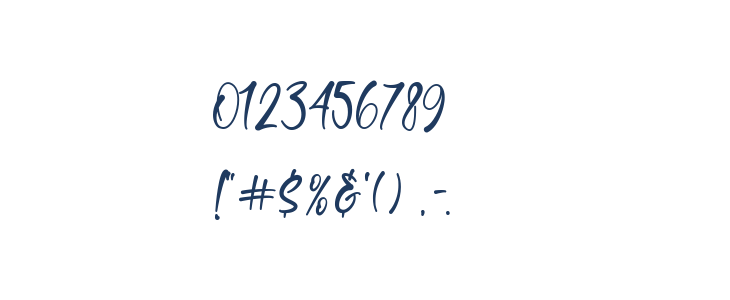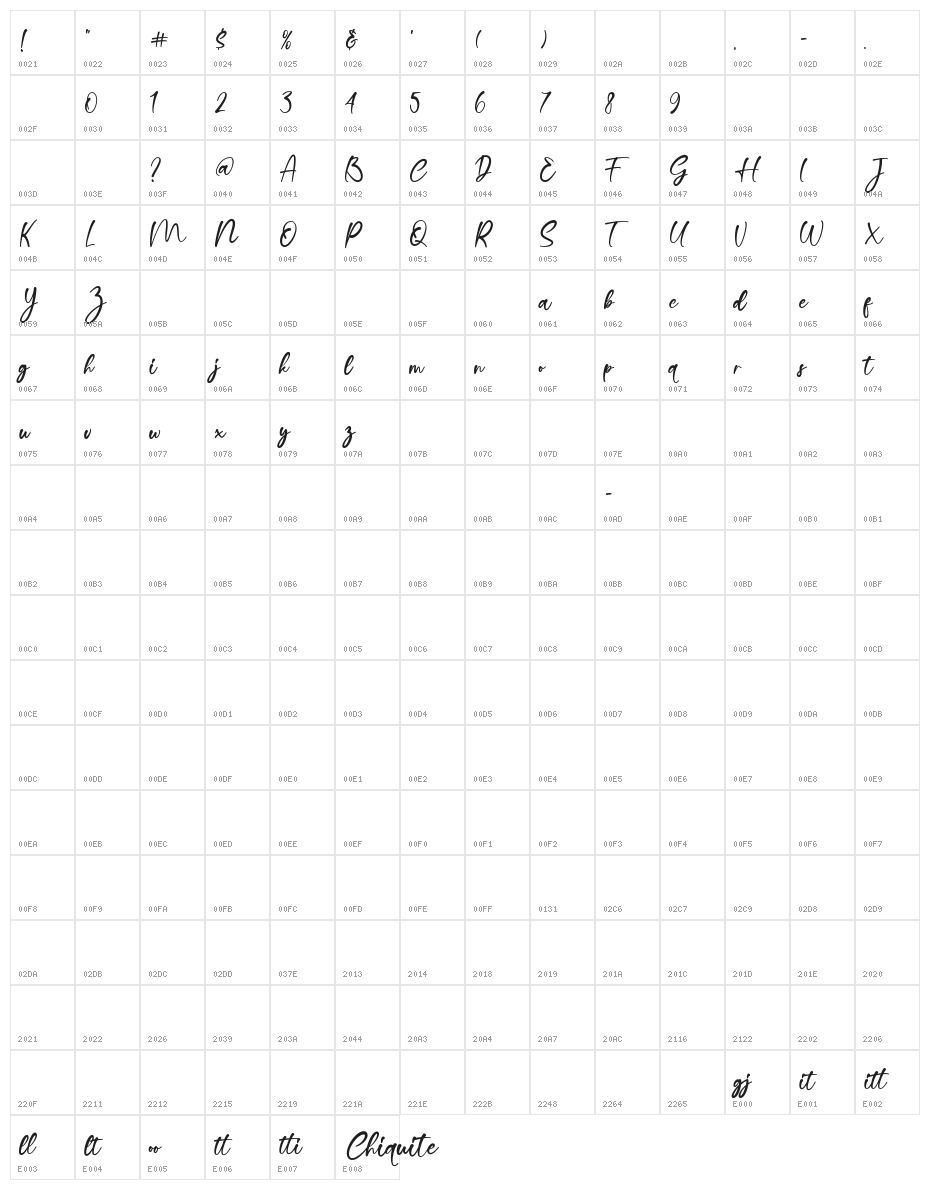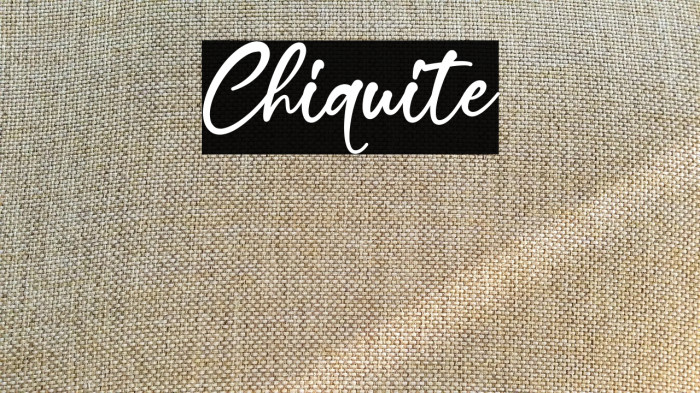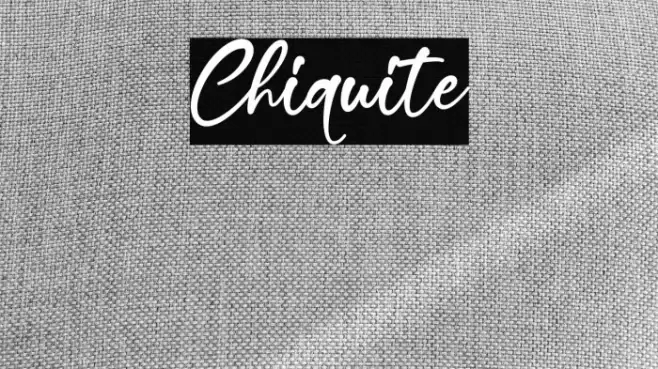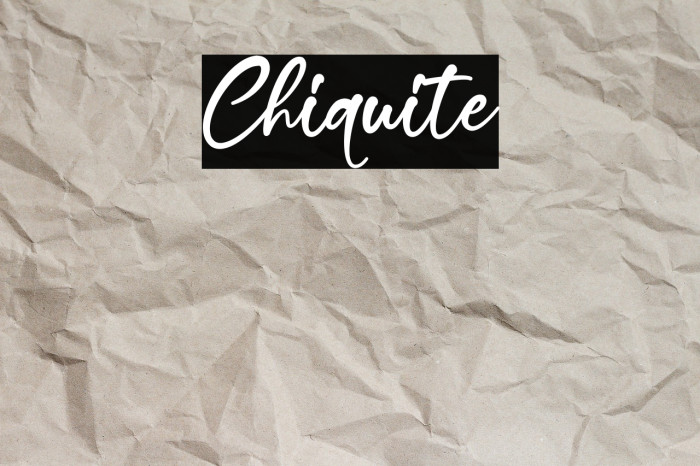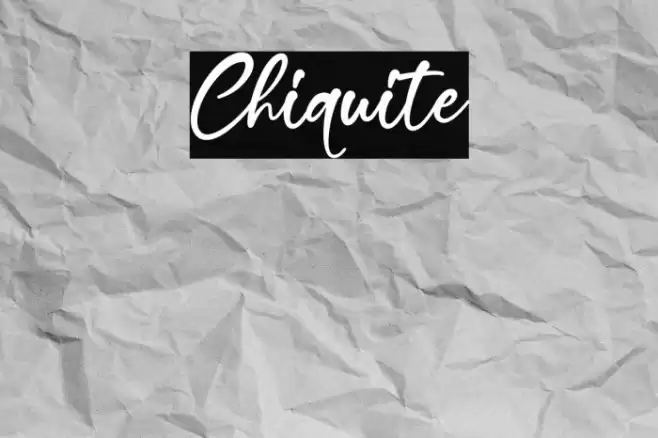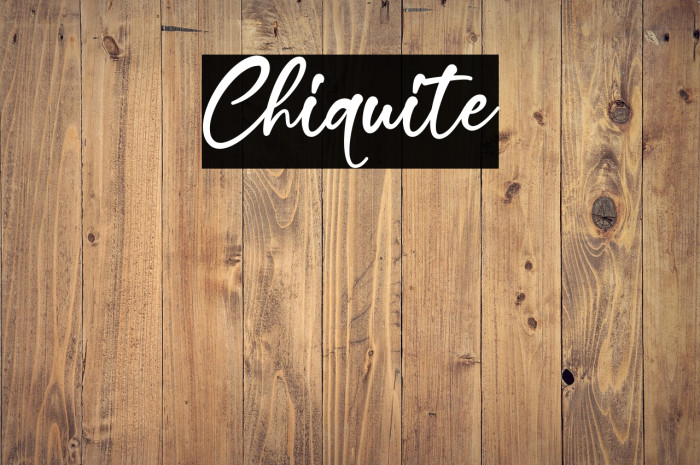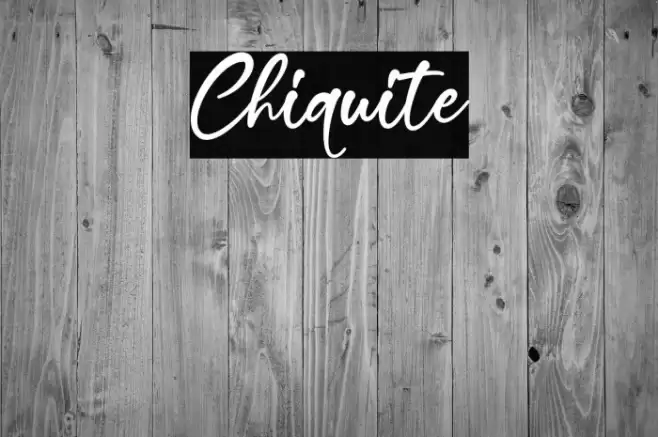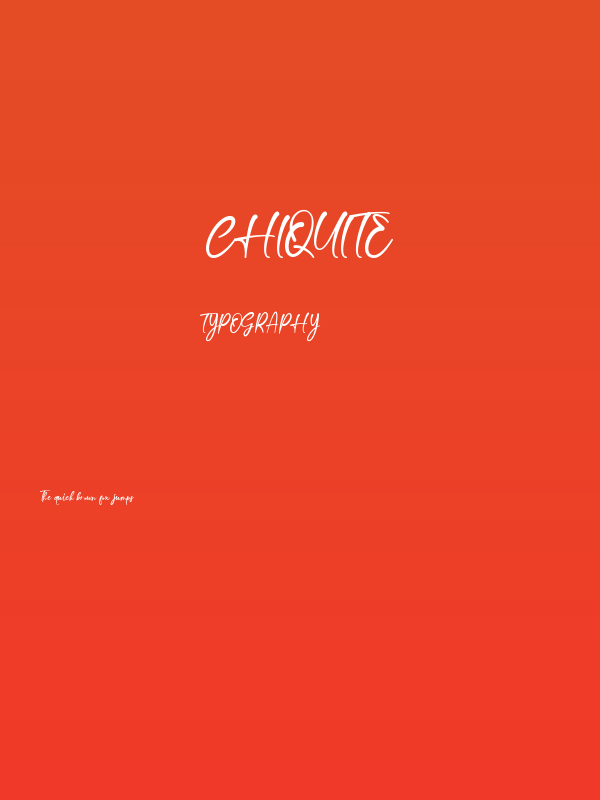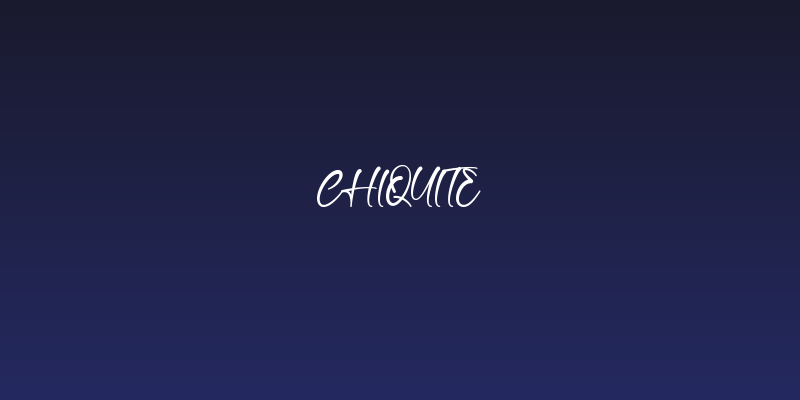
Chiquite Font
Chiquite Description
This font features a lively and flowing script style, characterized by its elegant and fluid strokes. The uppercase letters are tall and slightly slanted, giving a sense of movement and grace. The lowercase letters maintain a consistent rhythm, with smooth connections between characters, enhancing its cursive appeal. Numbers and special characters are crafted with the same attention to detail, ensuring a cohesive look across all elements. The overall design exudes a sense of sophistication and charm, making it suitable for a variety of creative applications.
| Proposed Projects | Ideal for wedding invitations, greeting cards, branding projects, and elegant logos. |